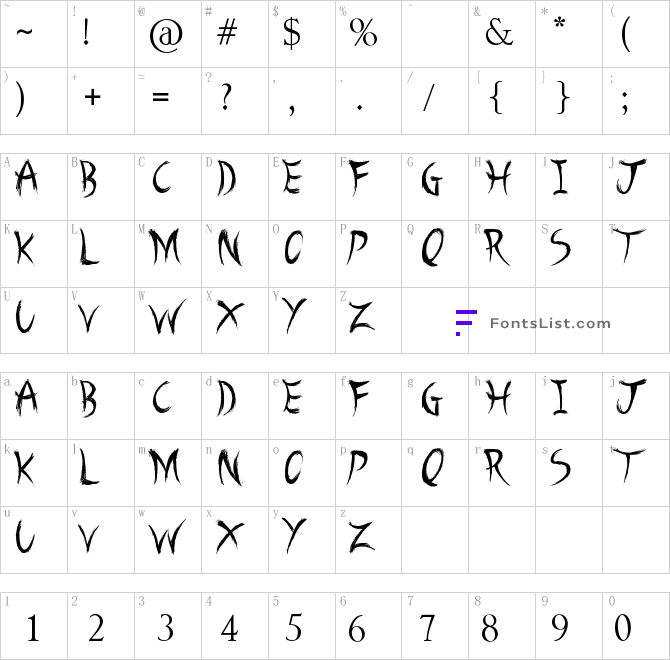
- Font Name:A Brush No
A-Brush-No.ttf is a very beautiful artistic font, A-Brush-No.ttf is widely used in the design and printing of various books and pictures,A-Brush-No.ttf has a strong visual impact,A-Brush-No.ttf is a commonly used font in newspapers, magazines and books, and is used in posters, e-commerce Poster design, store design, logo design, font design and other fields.A-Brush-No.